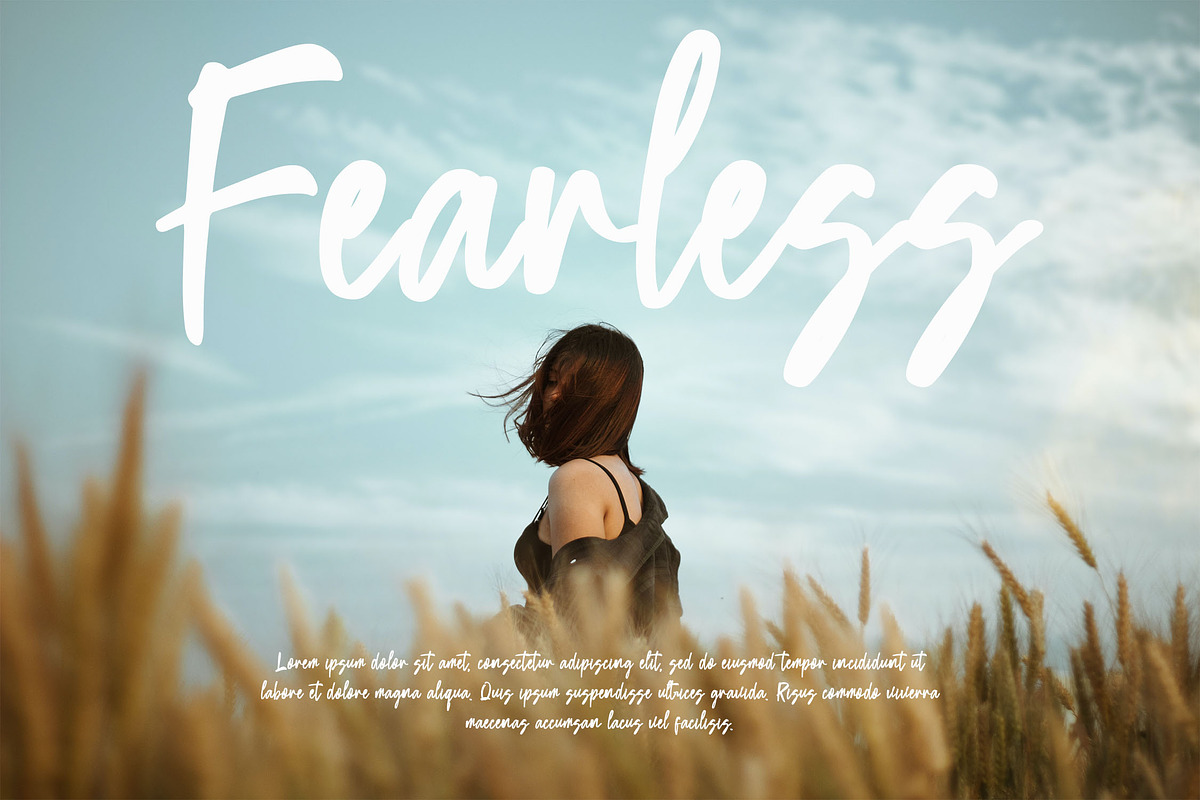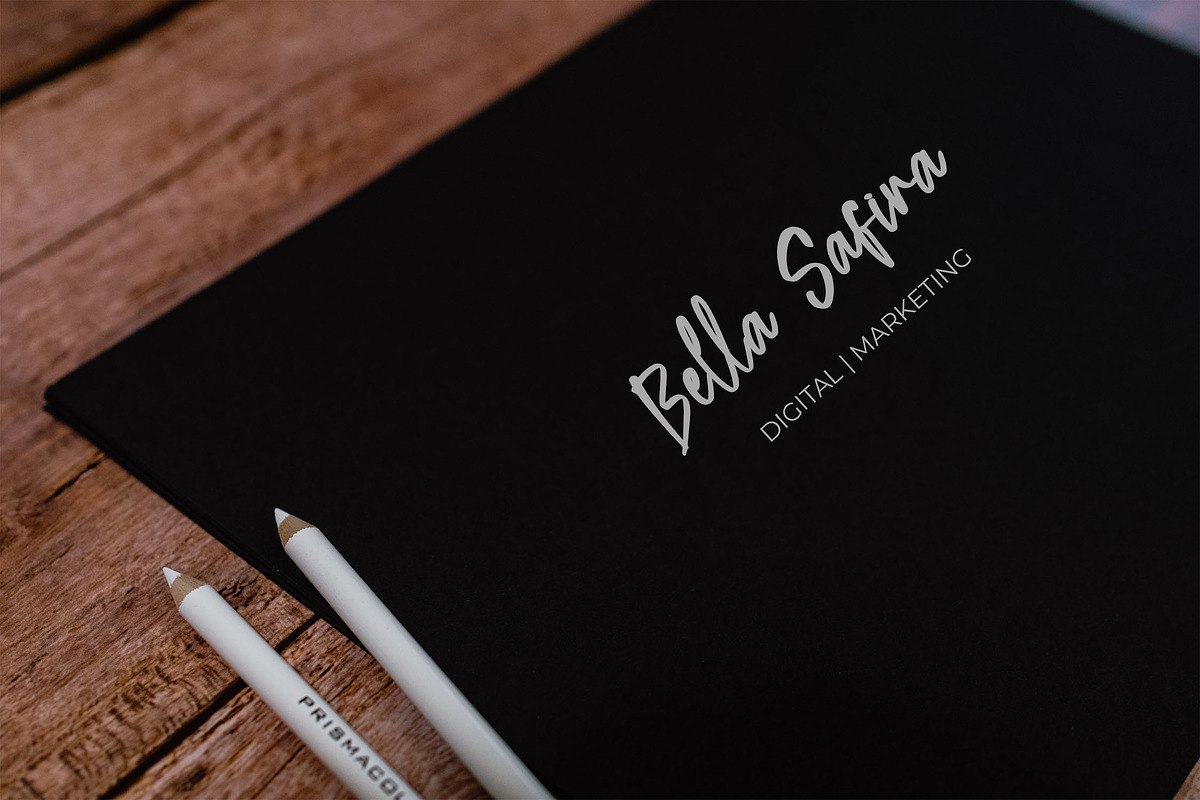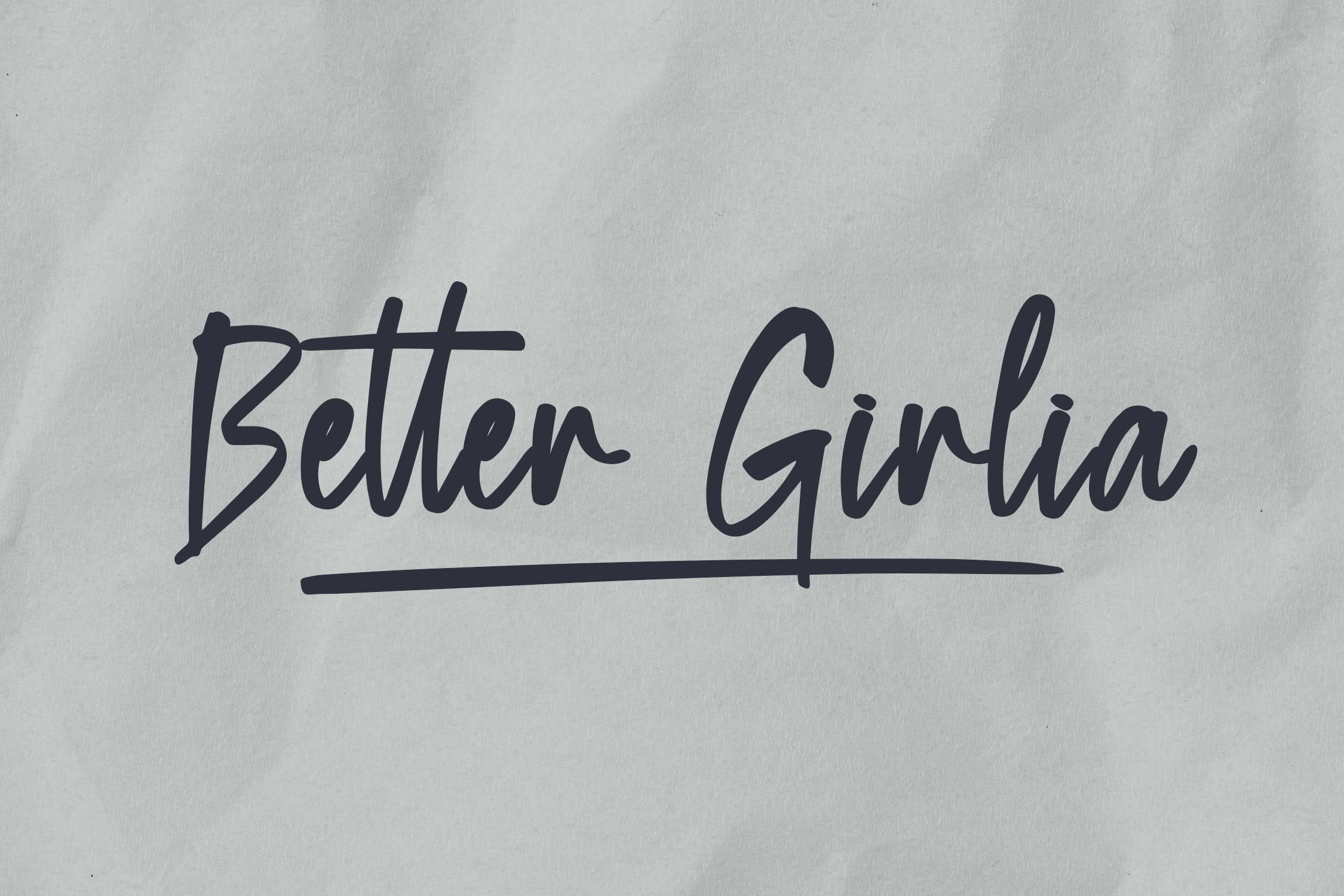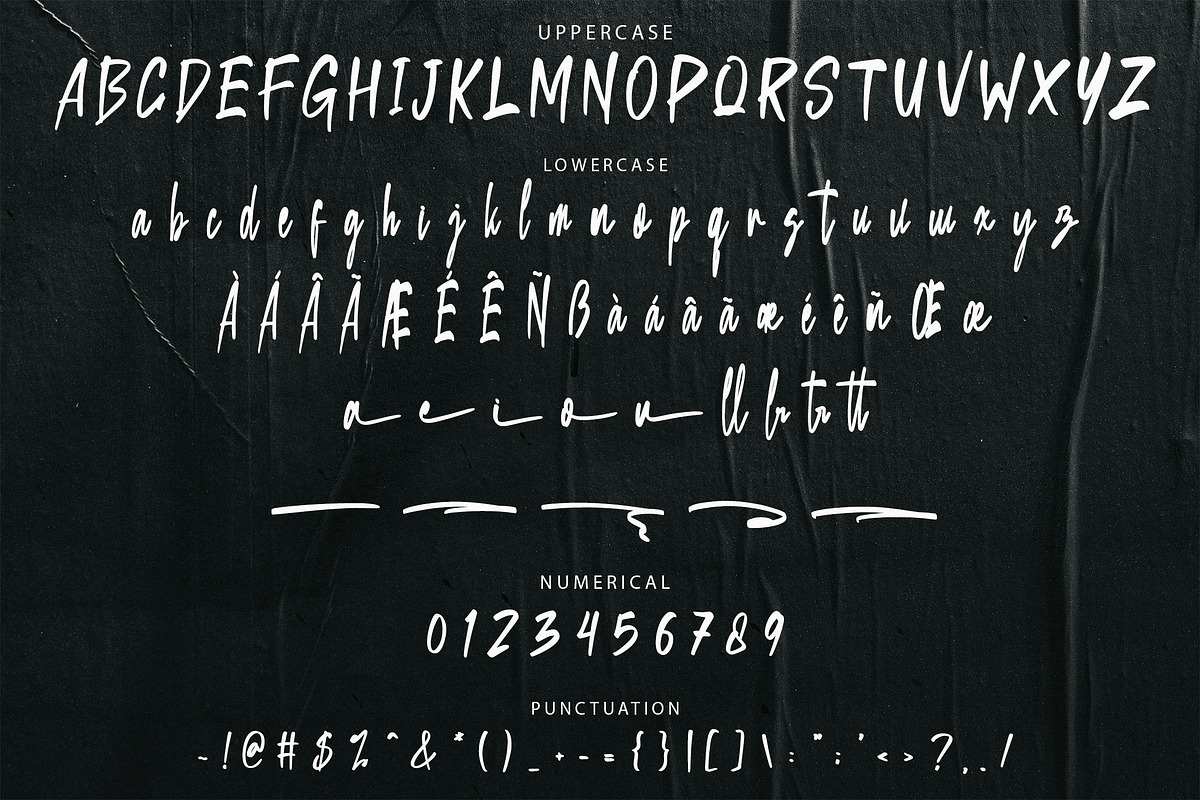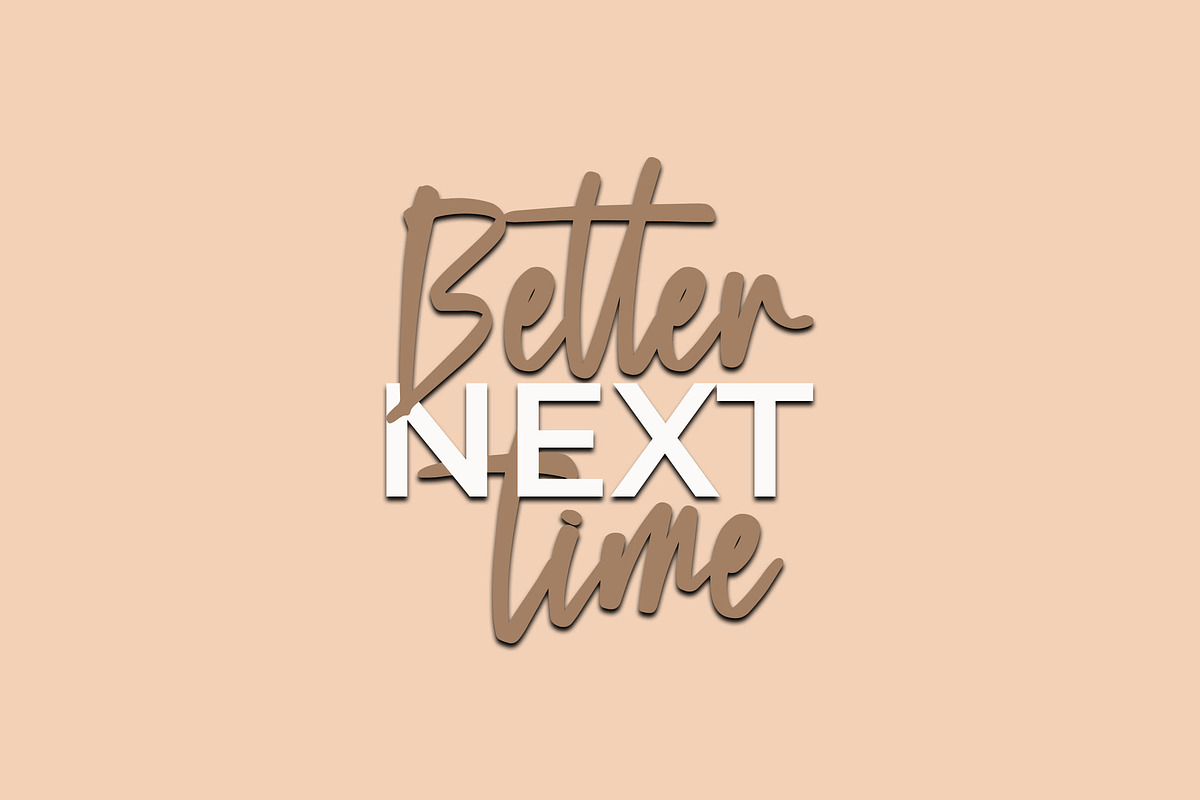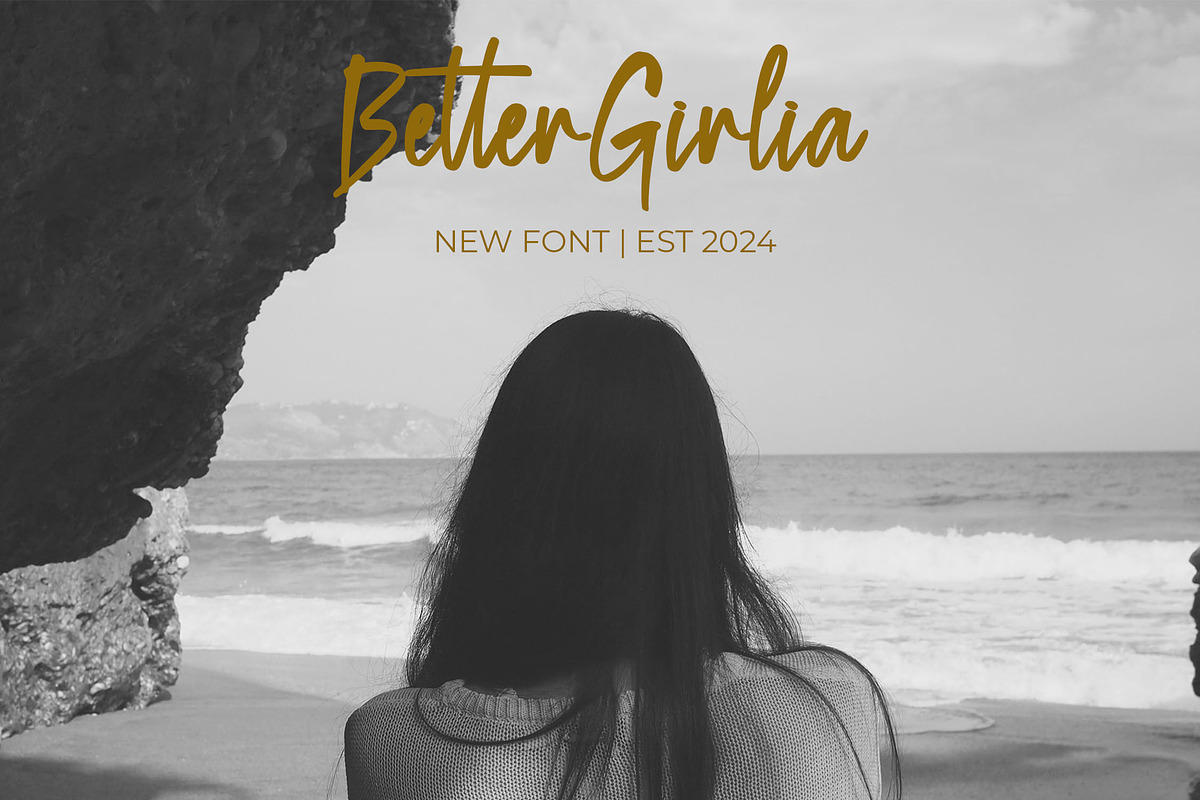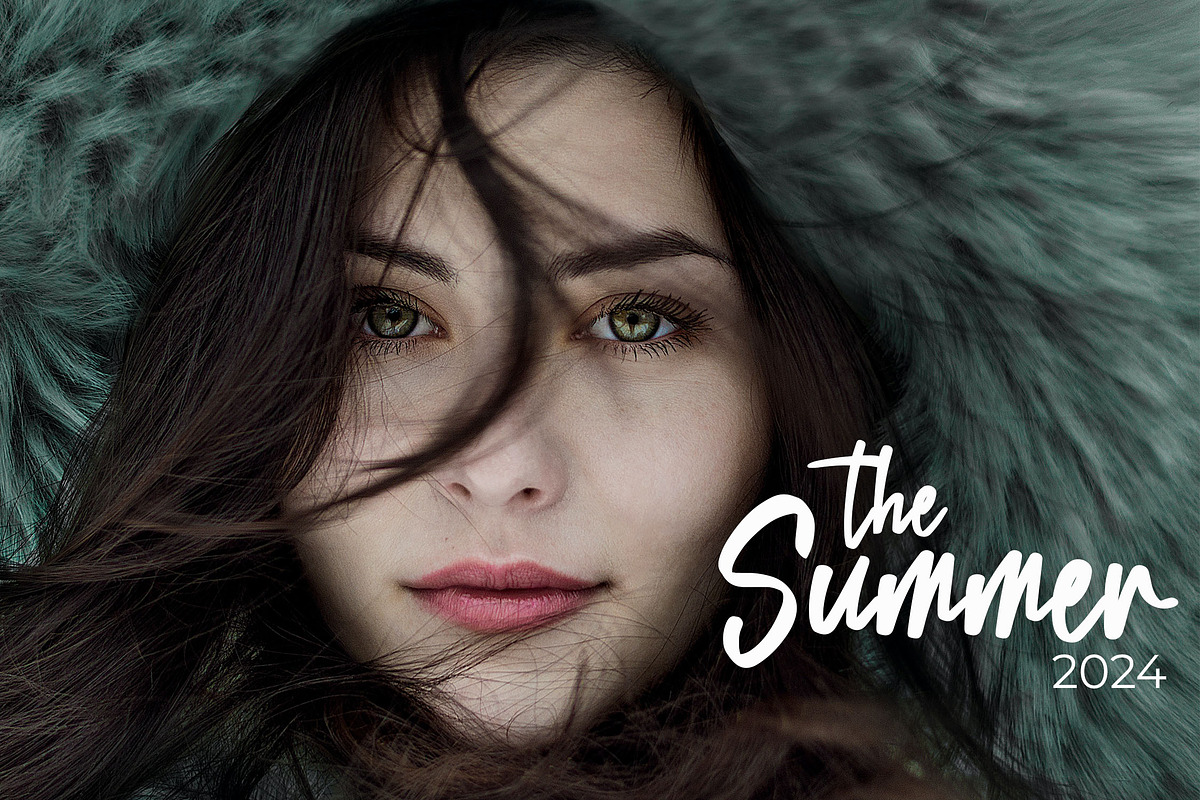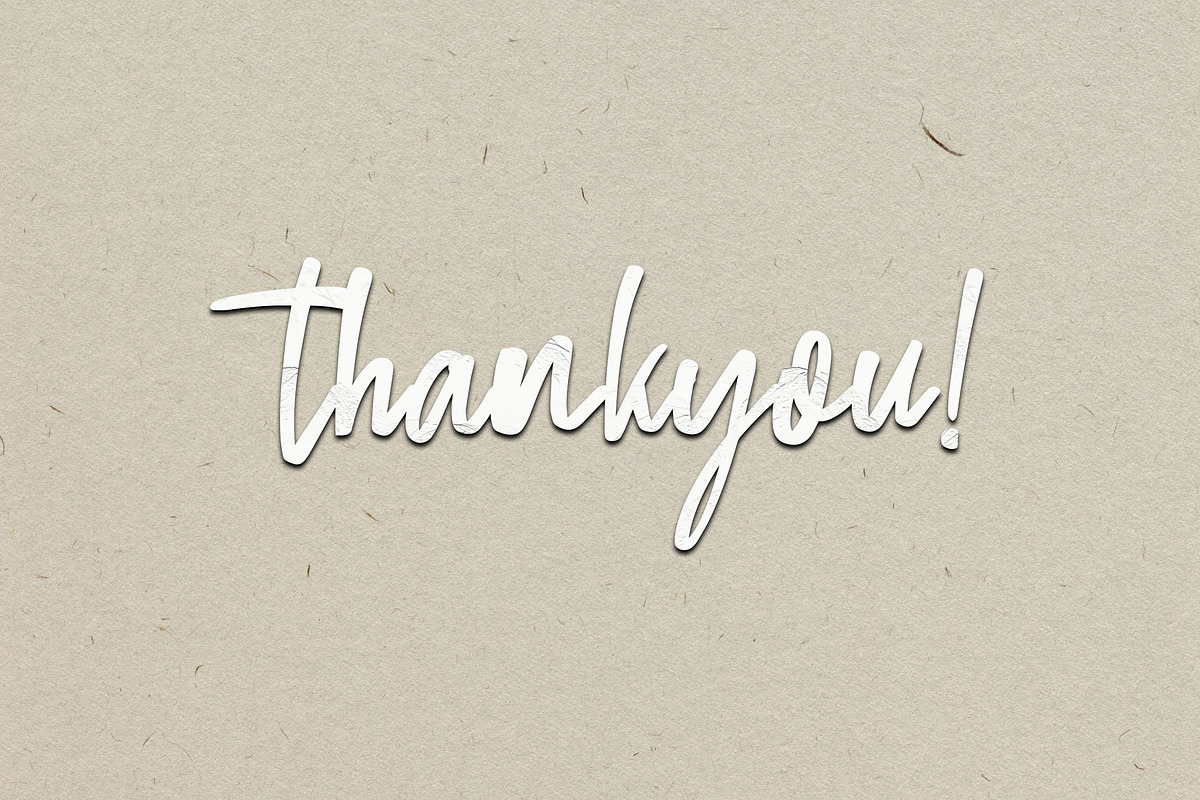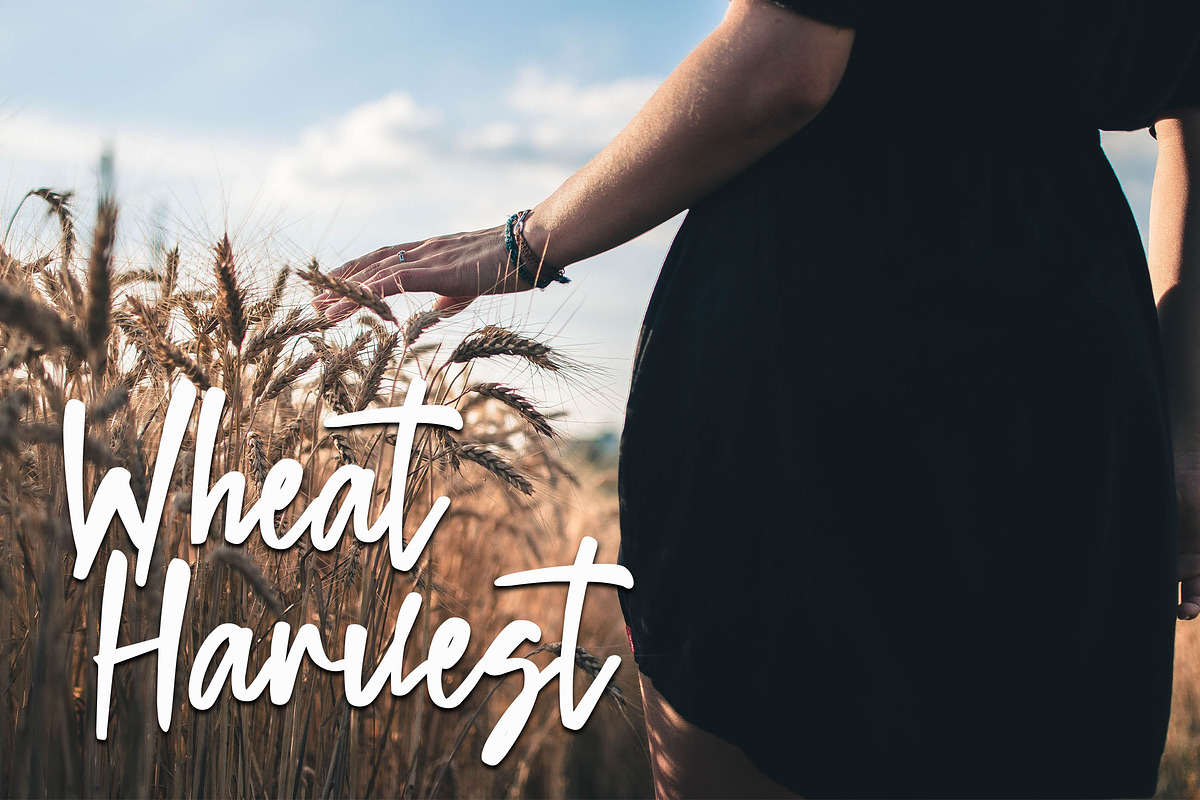
Better Girlia Handwriting Font
Better Girlia is a beautiful handwriting font with a natural brush stroke style. Its unique and elegant character shapes add a personal and artistic touch to your designs, making it perfect for logos, product packaging, invitations, and more. With Better Girlia, your projects will stand out with a visually captivating and stylish look.
- Ligatures: Effortlessly connected letters for smooth typography.
- Stylistic Alternates: Customize your text with alternative character options.
- Swashes: Add beautiful, flowing strokes to your text.
- Multilingual Support: Suitable for a variety of languages and alphabets.